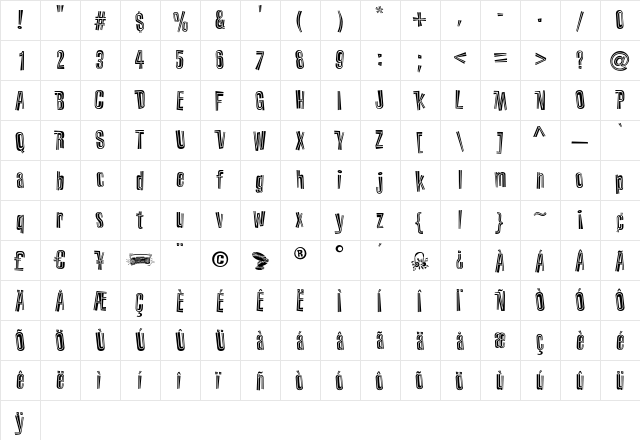
BeatStreetIn-Line Regular
Design Context for BeatStreetIn-Line Typeface
BeatStreetIn-Line is a composed and adaptable typeface that performs quietly and consistently across a wide range of design contexts.
Pro Tip: Use BeatStreetIn-Line in both headline and body roles to test its range before committing to a single application.